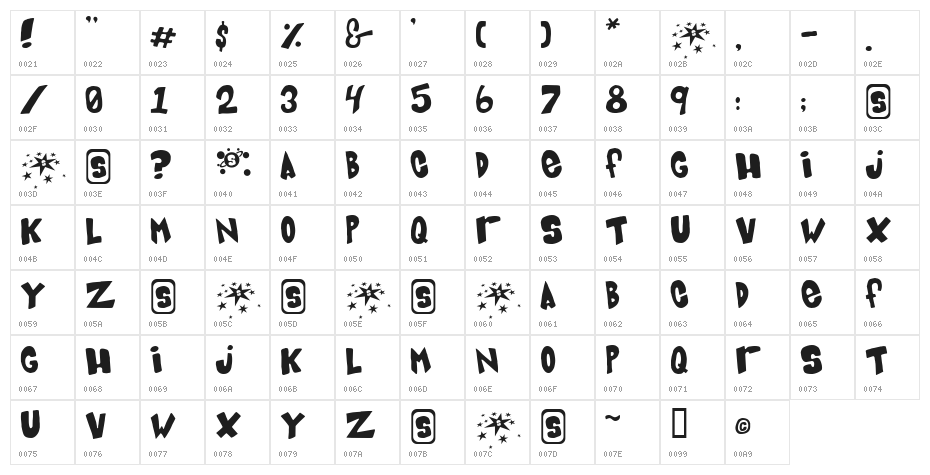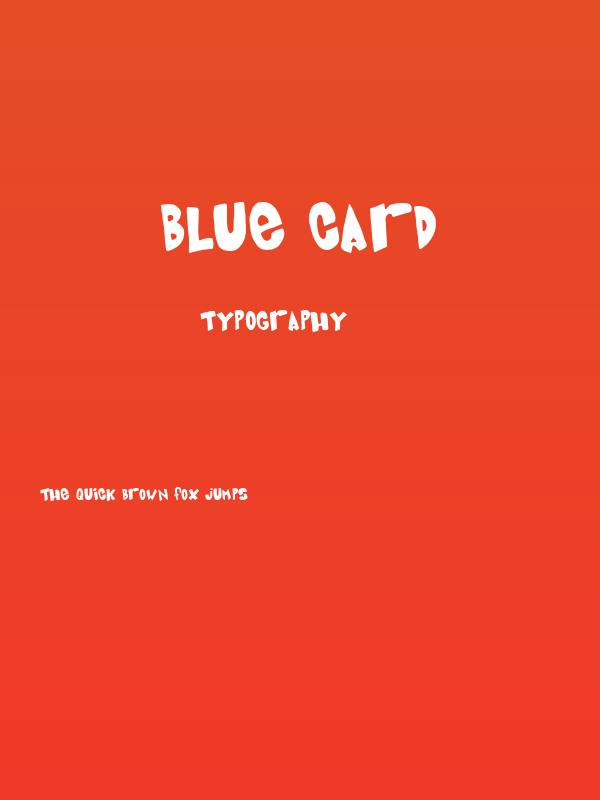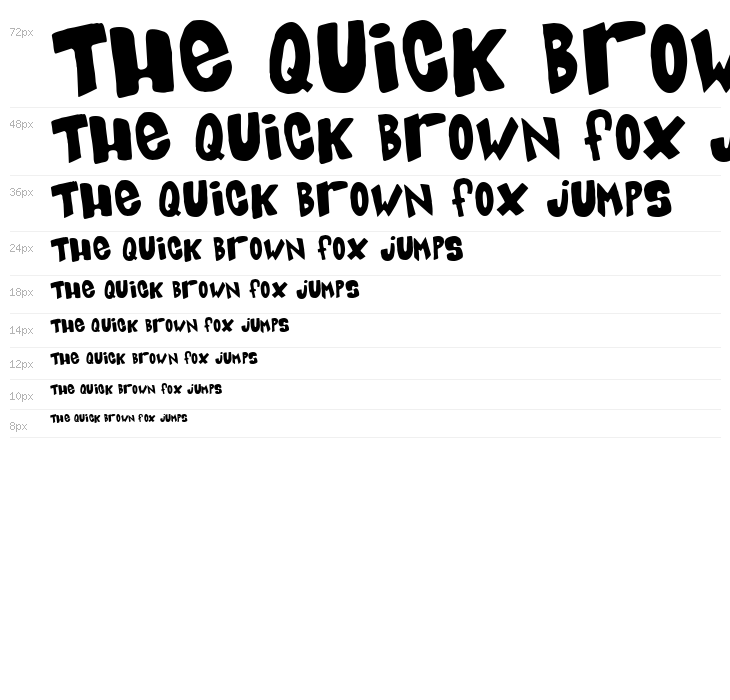
Blue Card Font
Blue Card Description
This font features a playful and bold design with exaggerated curves and a slightly irregular shape, giving it a whimsical and energetic feel. The letters are thick and rounded, with a hand-drawn appearance that adds a touch of informality. The uppercase and lowercase letters maintain a consistent style, while the numbers and special characters complement the overall aesthetic. The font's unique character makes it suitable for projects that require a fun and engaging look.
Overall StylePlayful, Whimsical
Proposed ProjectsIdeal for children's books, playful branding, party invitations, and creative posters.